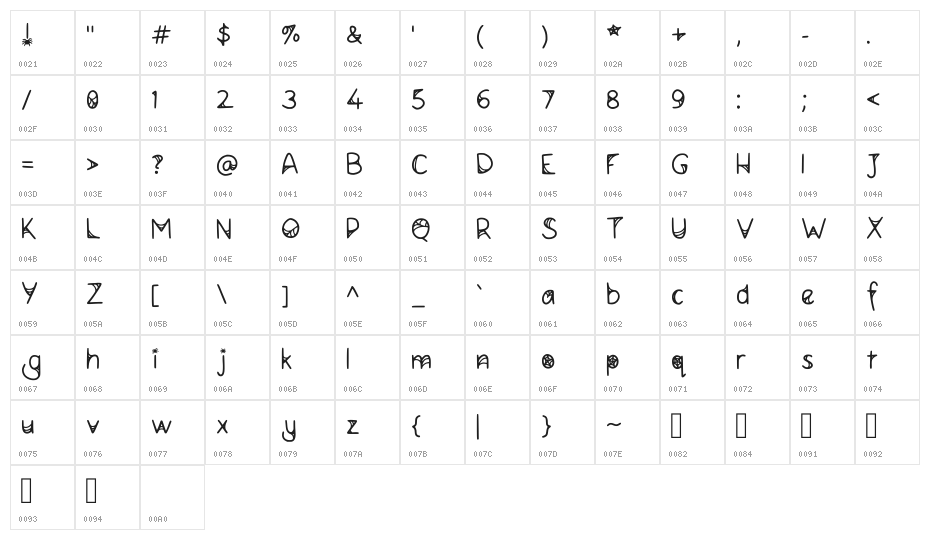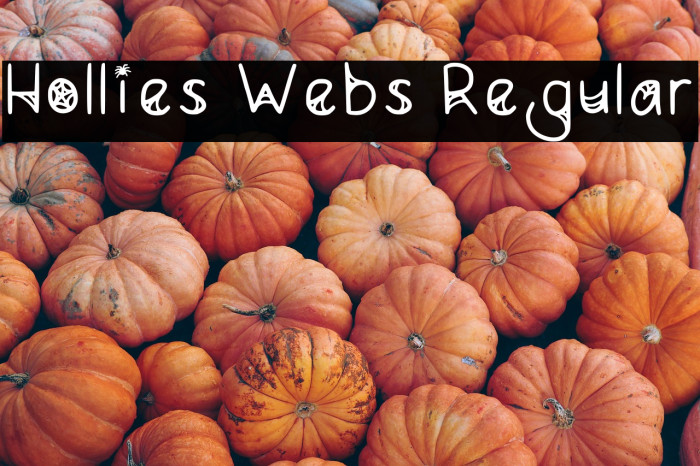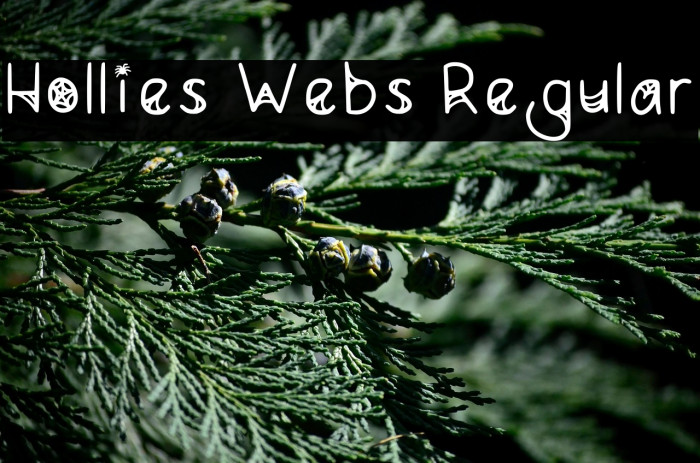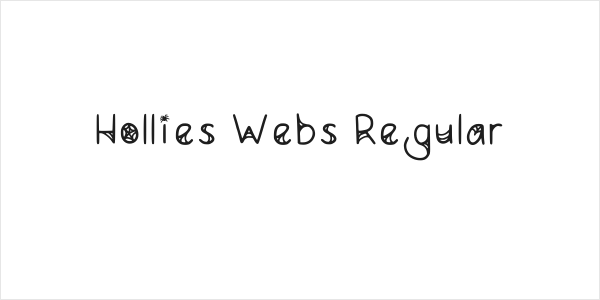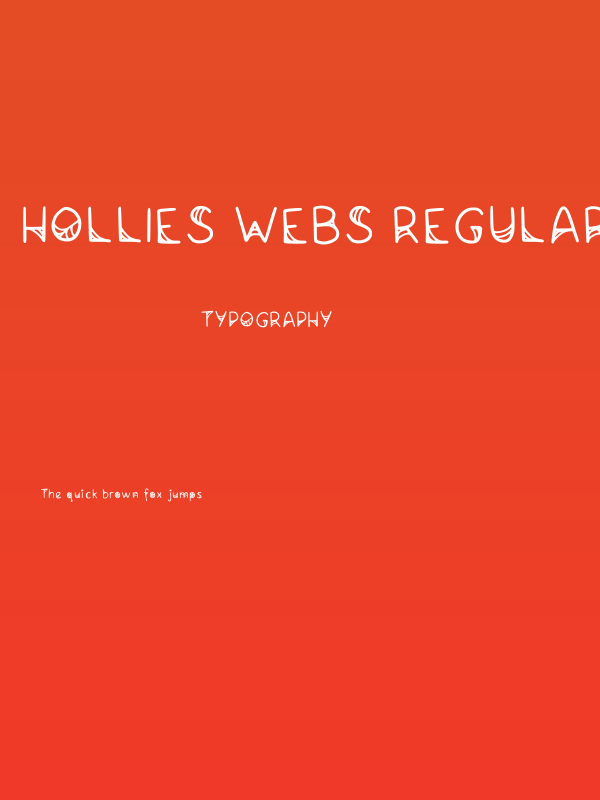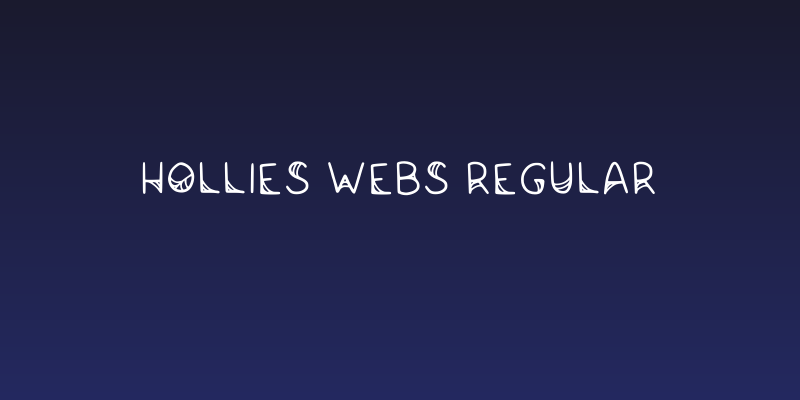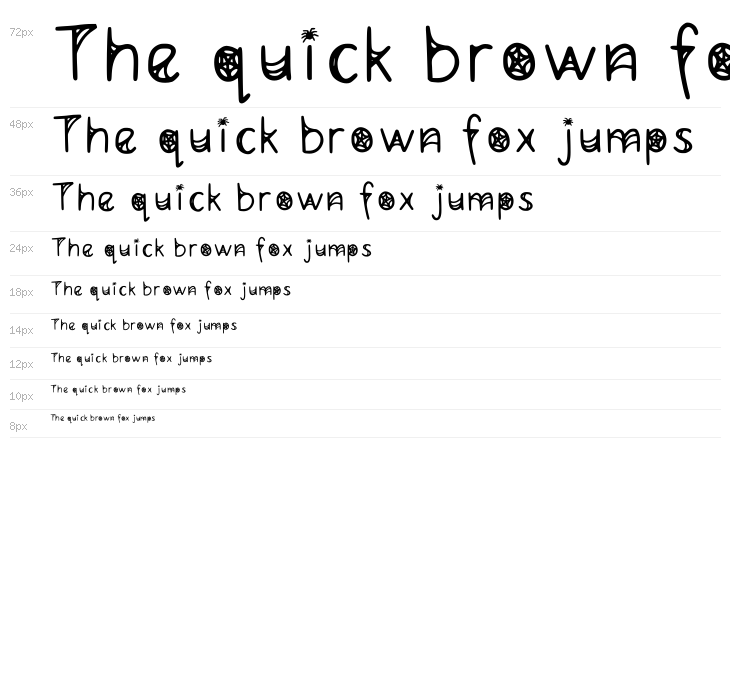
Hollies Webs Regular Font
Hollies Webs Regular Description
This font features a playful and whimsical design with a hand-drawn aesthetic. Each character is adorned with unique decorative elements, such as webs and stars, giving it a spooky yet charming appearance. The strokes are uneven, adding to the casual and informal feel. The font is perfect for creative projects that require a touch of fun and personality, making it ideal for Halloween-themed designs or children's materials. The characters are well-spaced, ensuring readability while maintaining their quirky style.
| Overall Style | Whimsical, Playful |
| Use Case | Headlines, Posters, Invitations |
| Proposed Projects | Ideal for Halloween-themed designs, children's books, party invitations, and creative posters. |